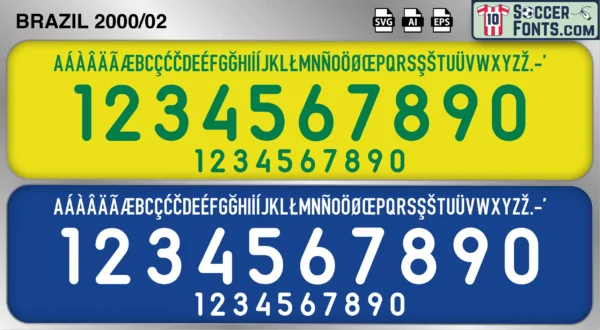
Brazil 2000-02 Font
The Brazil 2000-02 font is an editable soccer jersey lettering design in vector format inspired by the Brazil kit style used during the 2000-02 football seasons. This football font artwork is prepared for football shirt recreations, custom jersey projects, football kit mockups and sports graphic design workflows.
The 2000-02 era culminated in one of the most memorable achievements in football history as Brazil captured the 2002 FIFA World Cup in South Korea and Japan. After a challenging qualification campaign, the national team entered the tournament with a squad featuring Ronaldo, Rivaldo, Ronaldinho, Cafu, Roberto Carlos and Lucio. Under Luiz Felipe Scolari, Brazil developed into a balanced and highly effective side capable of combining technical quality with tournament experience. The campaign included victories over Belgium, England, Turkey and Germany as Brazil claimed a record fifth World Cup title.
The Brazil 2000-02 font became associated with one of the most iconic periods in international football and remains instantly recognizable among football supporters worldwide. Brazil shirts from the 2002 World Cup era are especially popular because of their connection with Ronaldo’s remarkable comeback story, the famous attacking trio and one of the greatest World Cup-winning teams ever assembled. The Brazil 2000-02 font is often linked with football nostalgia, tournament history and the global popularity of early-2000s football culture, making this period one of the most celebrated eras in the history of the Brazilian national team.